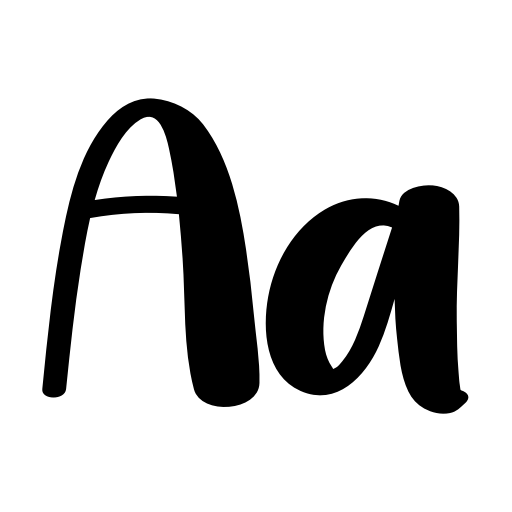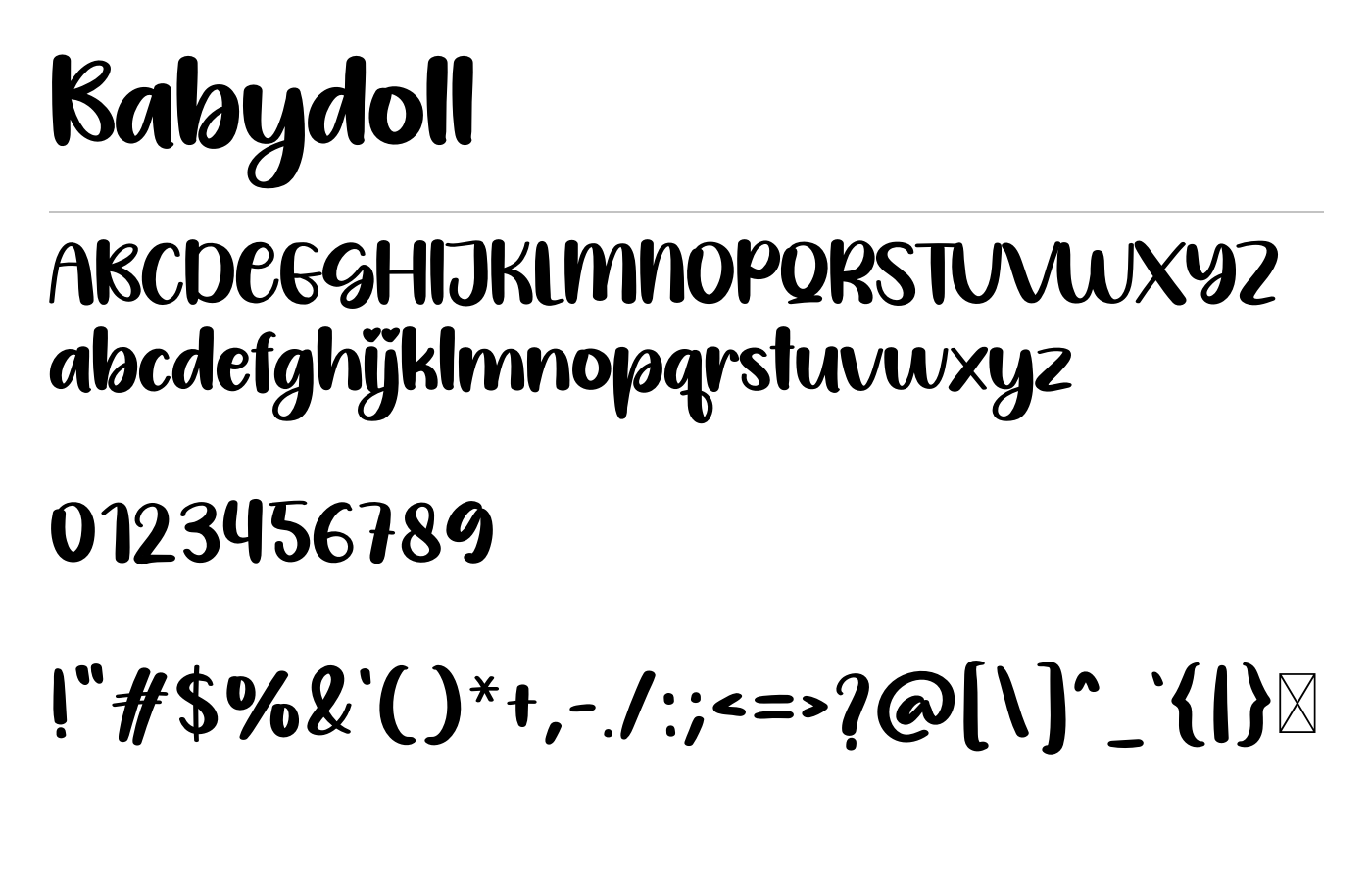
Babydoll is a playful and bold script font that features smooth, rounded strokes with a friendly, hand-drawn feel. Its tall x-height and lively letterforms make it perfect for casual, fun designs like children’s products, informal branding, and eye-catching headlines. This font works well where a cheerful and approachable personality is needed to engage and delight the audience.
Babydoll Font
About Babydoll Font